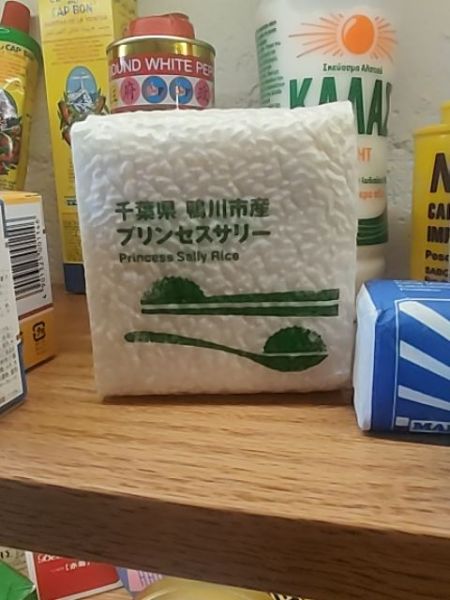
Princess Sally Rice
A type of rice known for its quality and flavor, suitable for a variety of culinary uses such as sushi, side dishes, or main courses.
The typography uses a clean sans-serif font, conveying a modern and straightforward aesthetic. The use of bold, green lettering ensures visibility and aligns with a natural, organic feel. The font's simplicity complements the minimalistic design of the packaging.
The packaging is compact and features a textured surface that emulates the appearance of grains. Simple green graphics of a spoon and rice add a touch of color and emphasize the product's origin and quality.
- Grown in Chiba Prefecture, Sosa City.
- Known for its fragrant aroma and fluffy texture.
- Ideal for Japanese cuisine and international dishes.